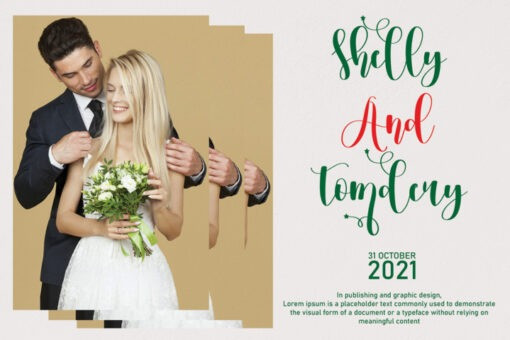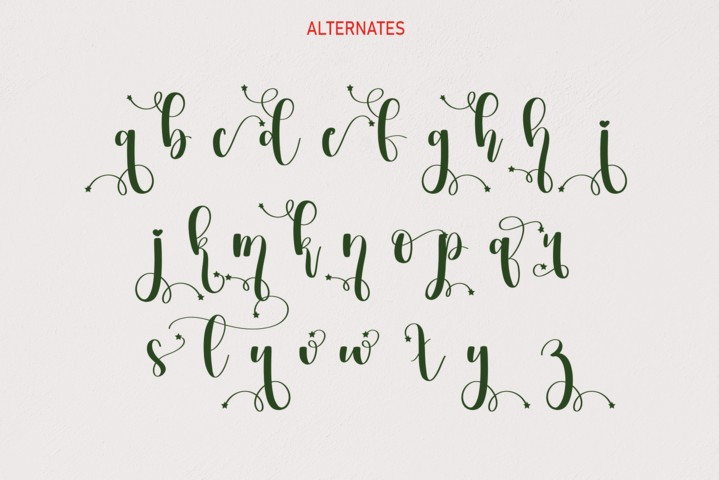
Girlfriend Script Font
Girl Friend is a thin and flowing handwritten font, described by an elegant touch, perfect for your favorite projects. This gentle font will look gorgeous on a variety of design ideas. It will add a joyful and romantic touch to each of your projects!